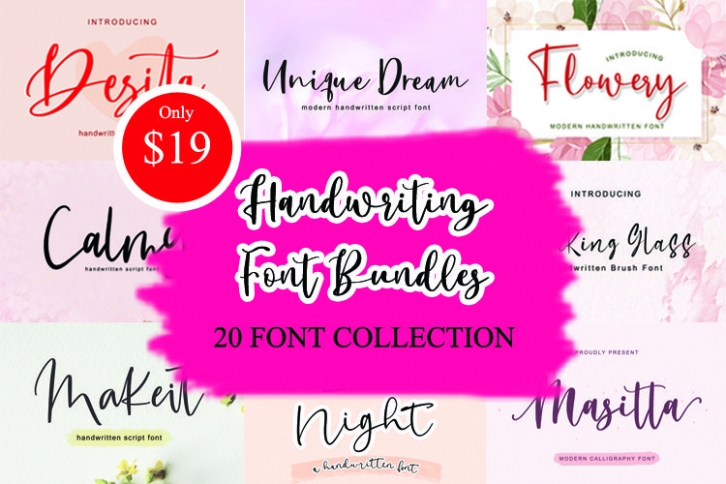
Hand Writing Bundles is a beautiful font that was designed by Fontysia. It's a great choice for designers and creatives who need such a font. It was released on July 13, 2021 and the file size is 7.69 MB. Hand Writing Bundles may give a more youthful, expressive and casual look to your project. It is a very beautiful, refined, elegant, and high-quality font.